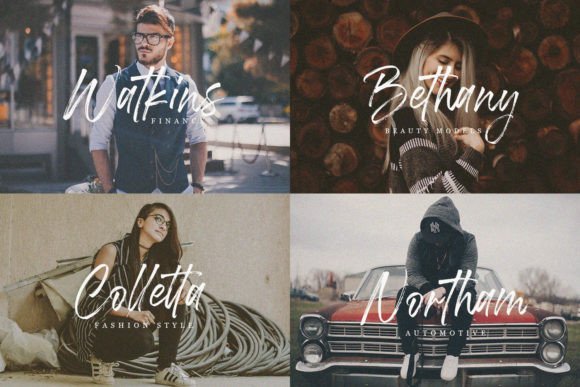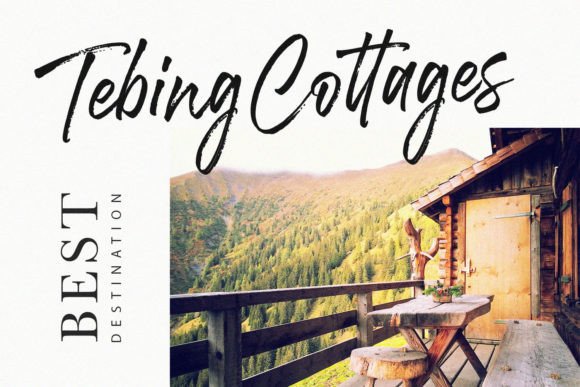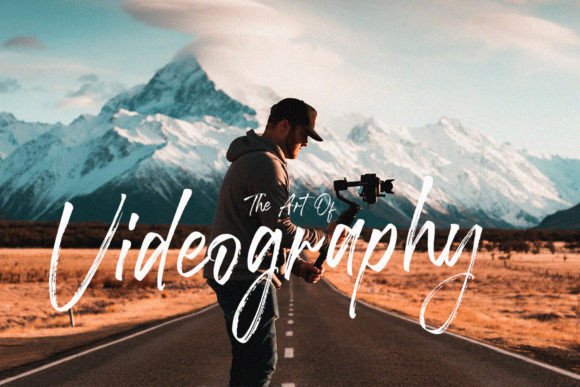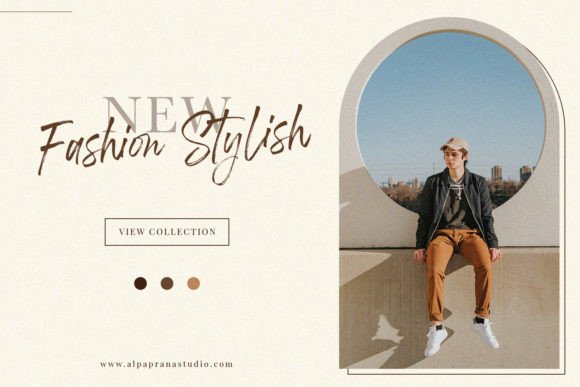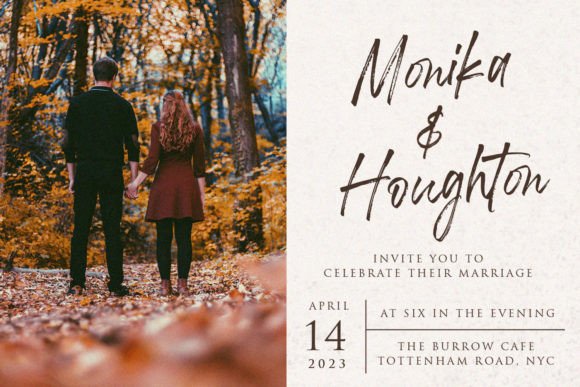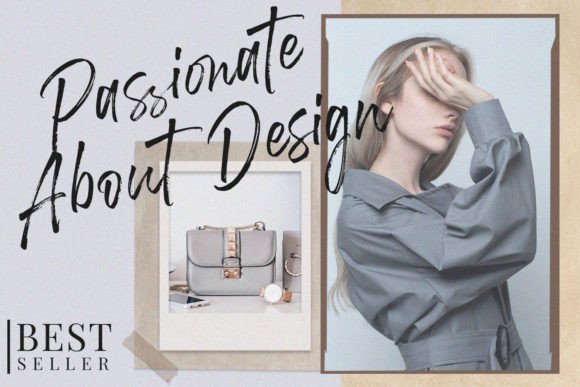
Introduction to Long Path Font
Long Path is a stunning brush script font with authentic and natural feels.
It will be perfectly used for Branding, Logo Design, Lettering, Logotype, Clothing, Poster, magazine, packaging, posters, shopping bags, t-shirts, book covers, photography, special events, and other design projects .